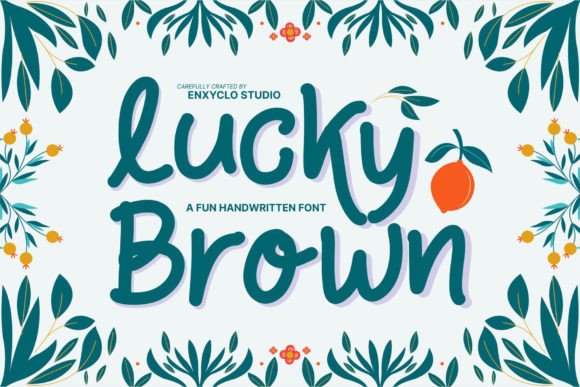
Presenting the captivating LUCKY BROWN, a whimsical handwritten font that will effortlessly cast a spell of charm on all your creative endeavors!
Indulge in the exquisite beauty of this font, where each letter dances playfully, adding a touch of magic to every word you write. Whether you're crafting enchanting invitations, designing captivating social media posts, or simply seeking a font that exudes personality, LUCKY BROWN has got you covered.
With its unique, playful, and undeniably cute charm, this font is a true standout. Each character has been meticulously crafted to convey a sense of joy and lightheartedness, ensuring that your words will not only be read but also cherished.
LUCKY BROWN's versatility knows no bounds. Whether you're designing girly tattoos, creating eye-catching logos, or simply adding a touch of whimsy to your personal projects, this font will effortlessly elevate your creations. Its ability to shine in large point sizes makes it perfect for grabbing attention, while its charm remains intact even in smaller sizes.
Embrace the magic of LUCKY BROWN today and let your creativity soar to new heights!